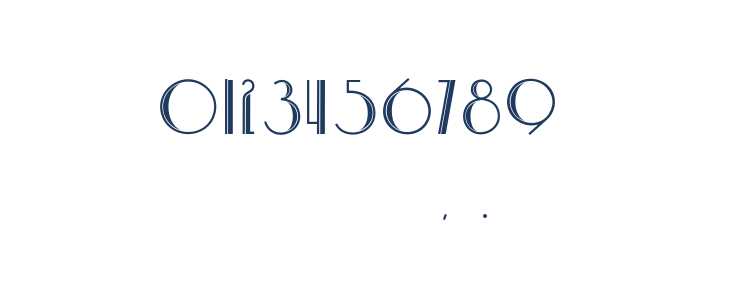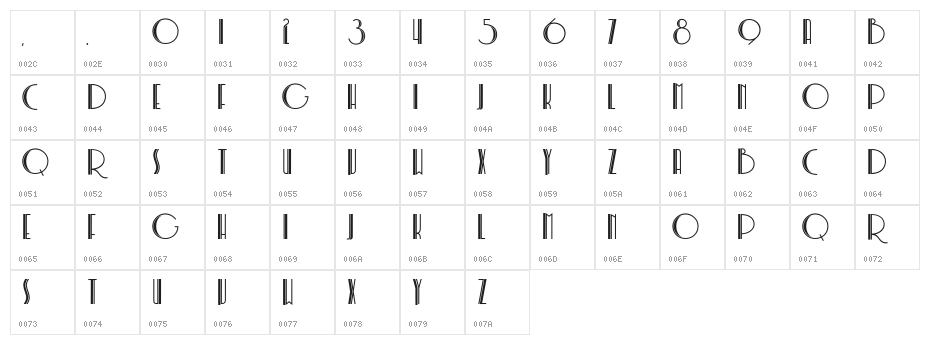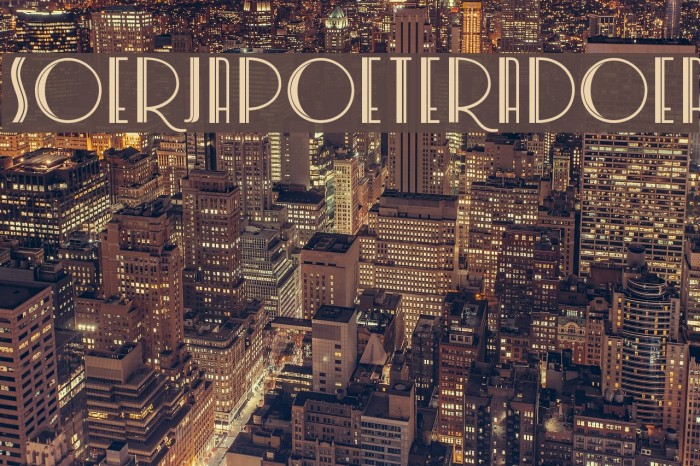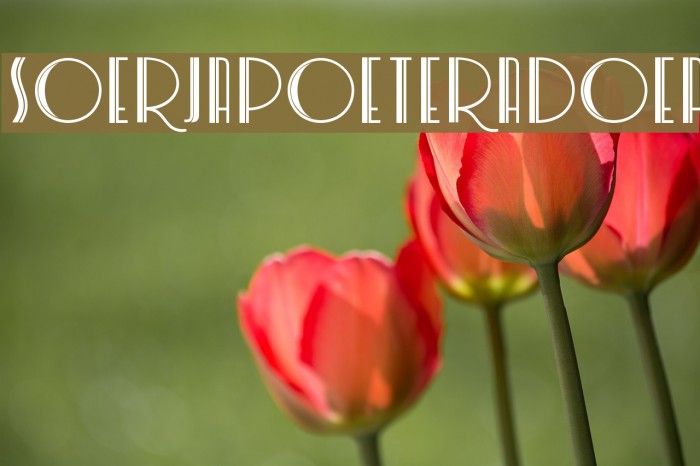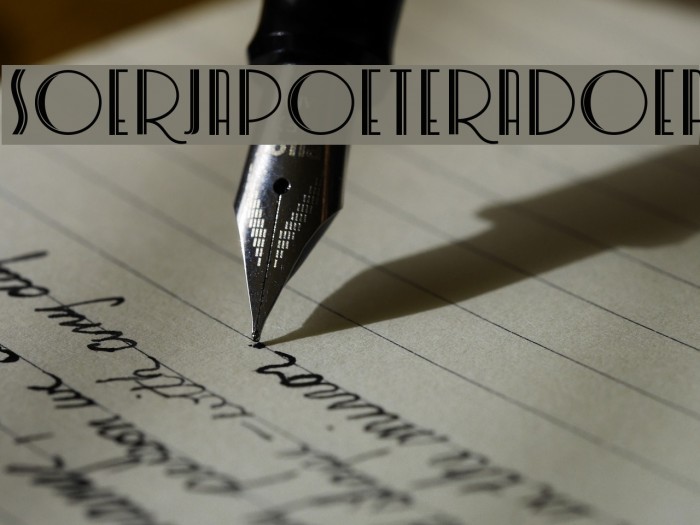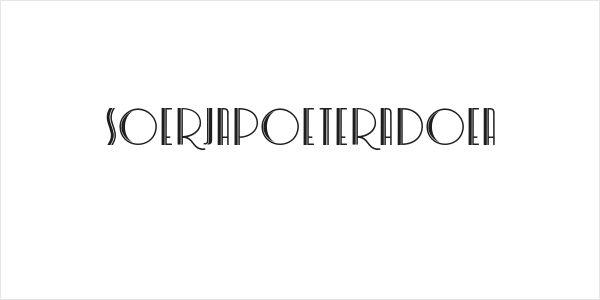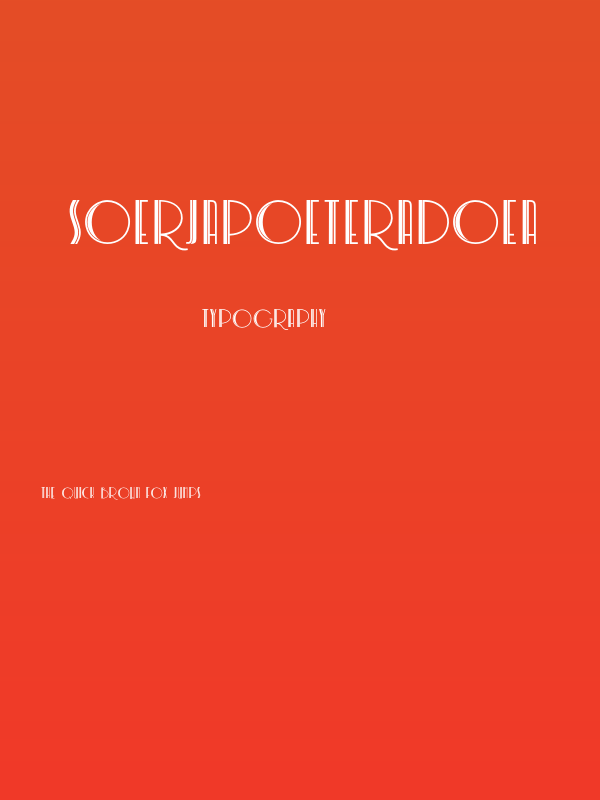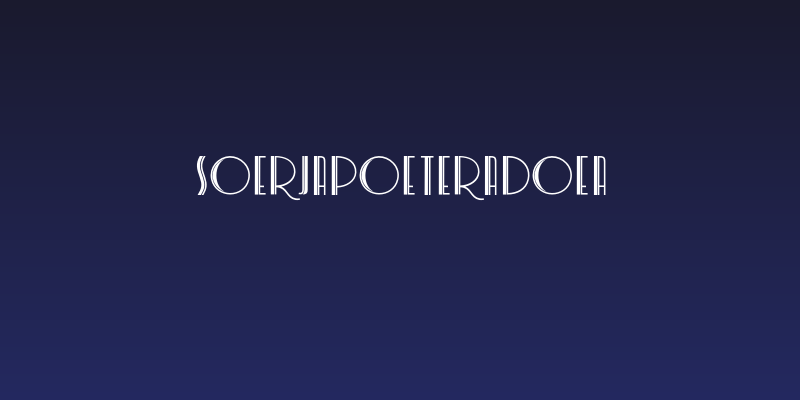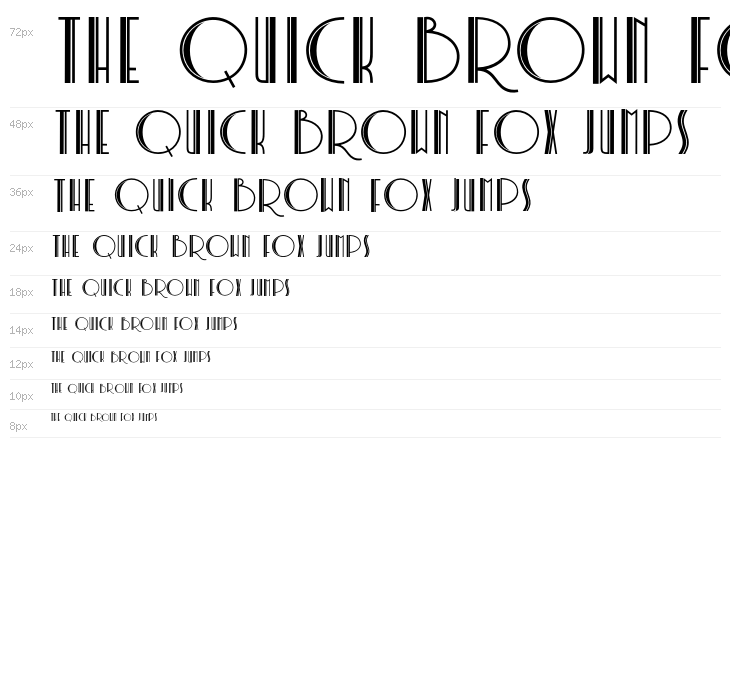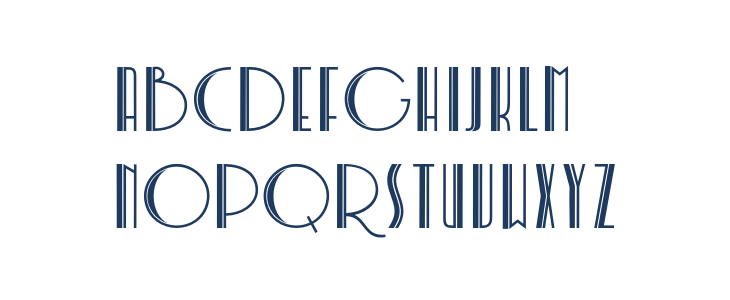
SoerjapoeteraDoea Font
SoerjapoeteraDoea Description
This font exhibits a distinct Art Deco style, characterized by its geometric and streamlined forms. The uppercase letters feature bold vertical strokes with contrasting thin horizontal lines, creating a sense of elegance and sophistication. The lowercase letters maintain a similar aesthetic, with unique curves and angles that add to the font's decorative appeal. The numerals are designed with a consistent style, integrating seamlessly with the overall look. Special characters are included, maintaining the same design principles. This font is ideal for projects that require a touch of vintage glamour and modern flair.